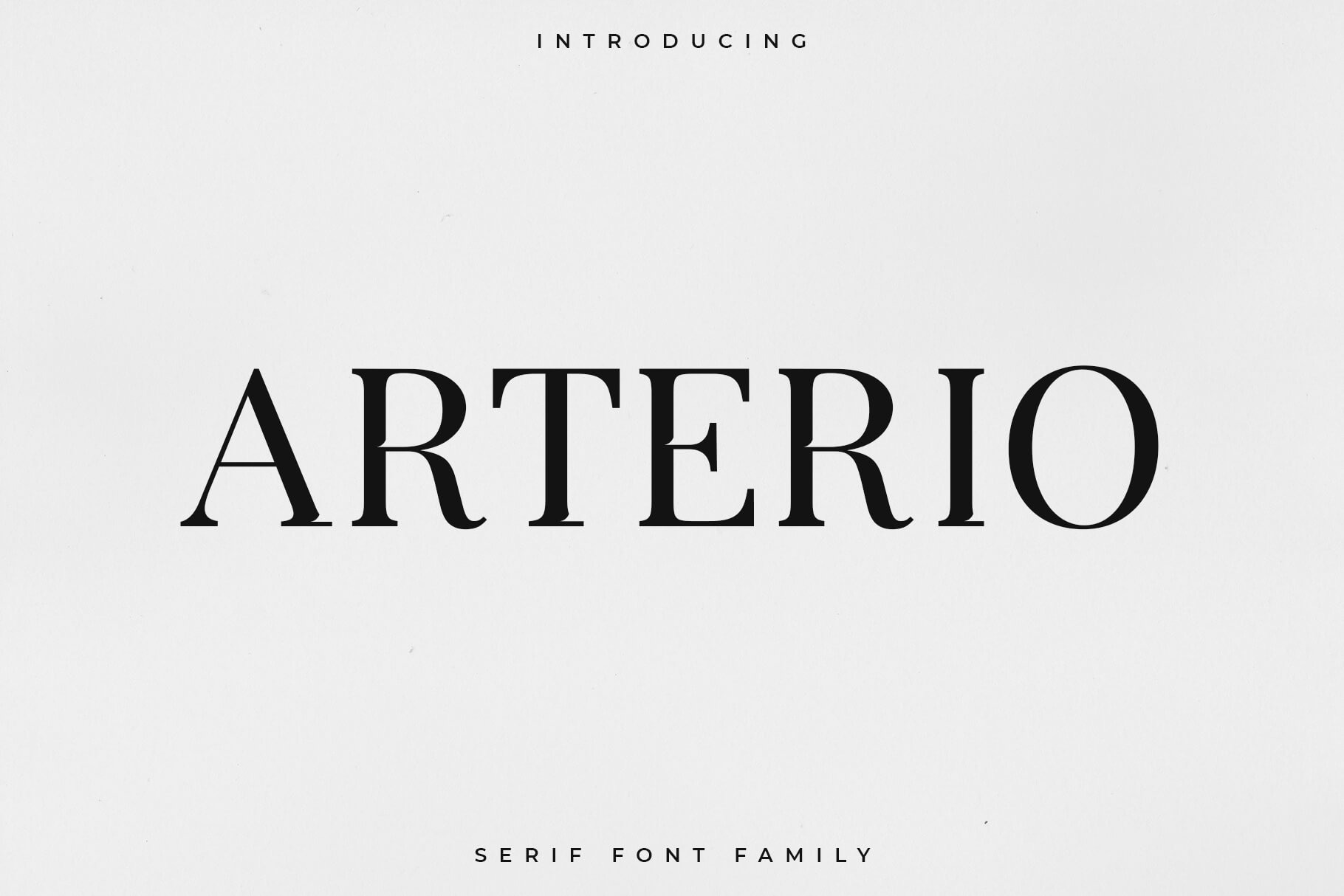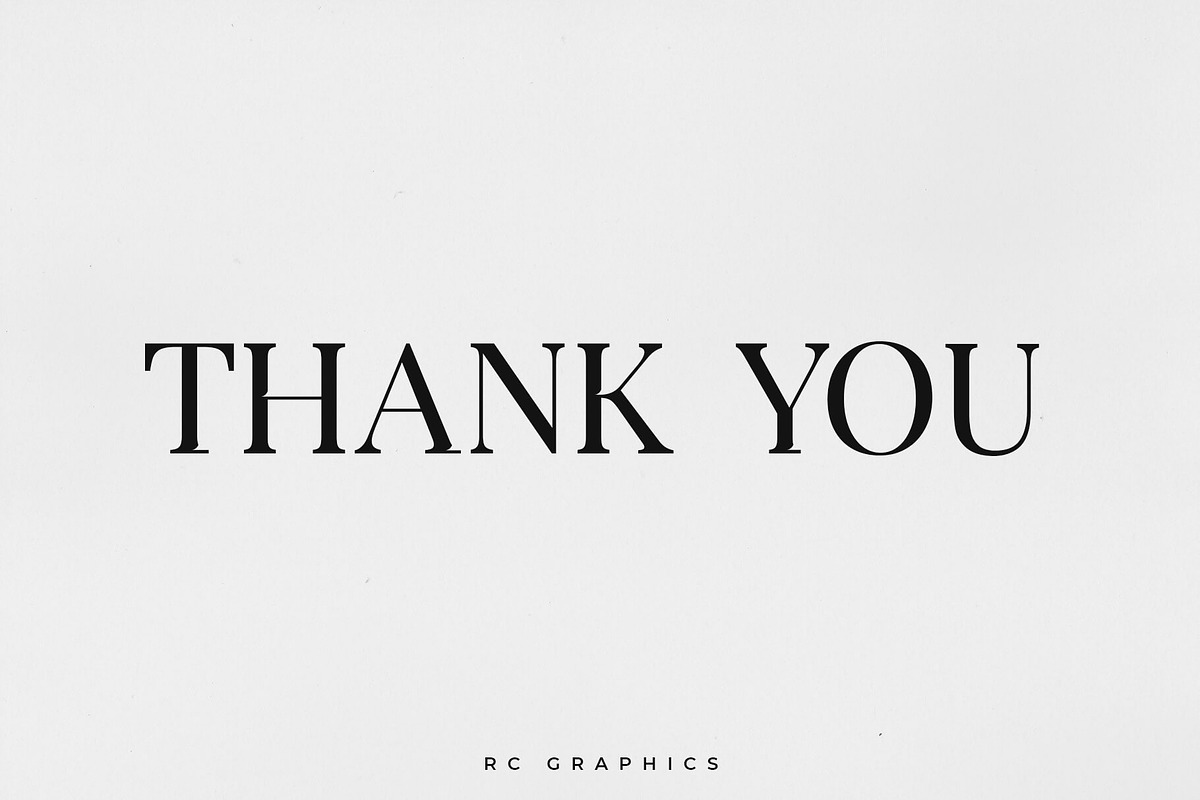
Arterio Font Family - Serif
Arterio is an elegant and clean serif font. It’s a versatile font family designed for strong, classic branding. Arterio is perfect for any branding, logos, magazines, videos, weddings, quotes, print, product packaging, website, clothing designs and much more.
- Uppercase letters